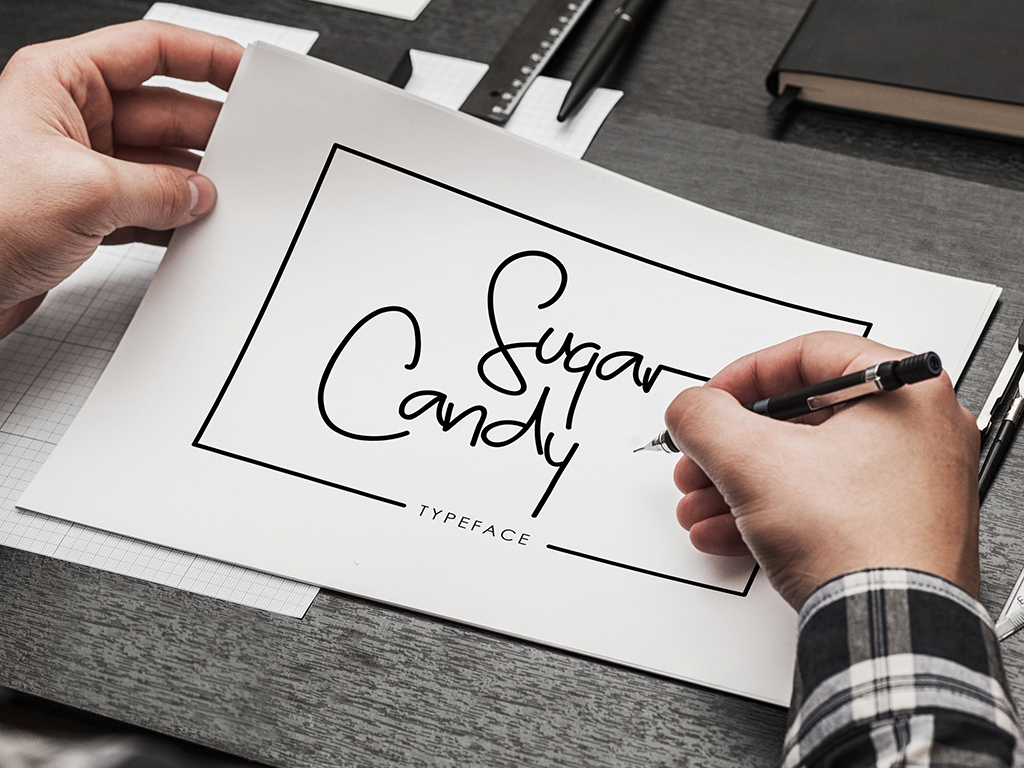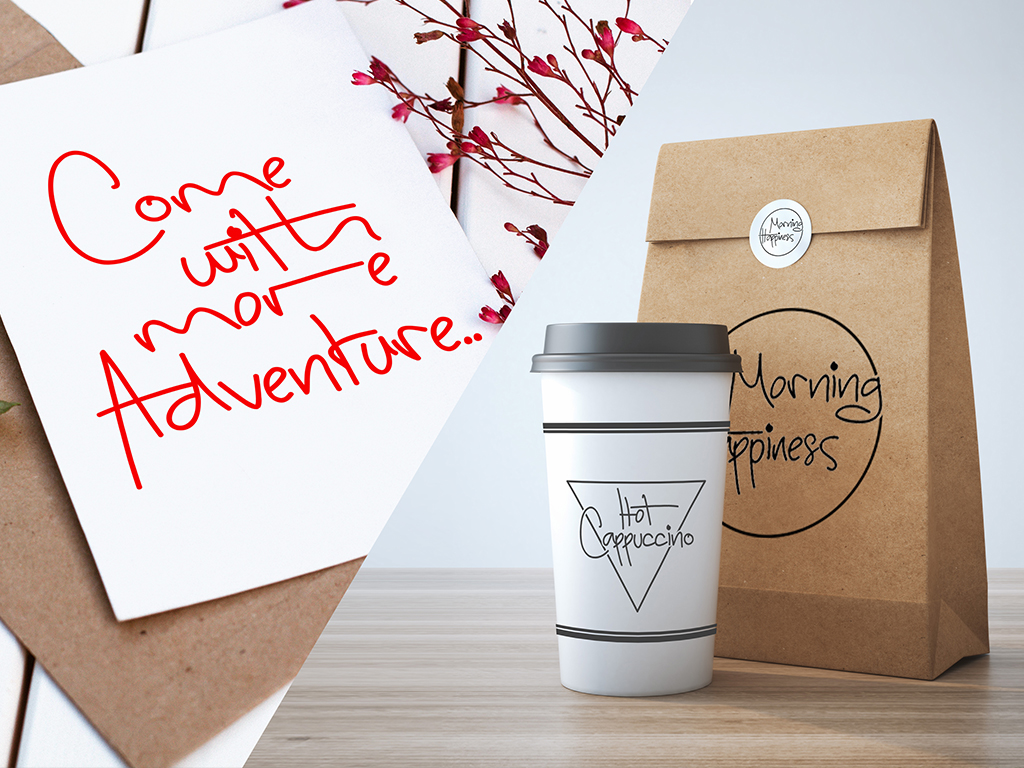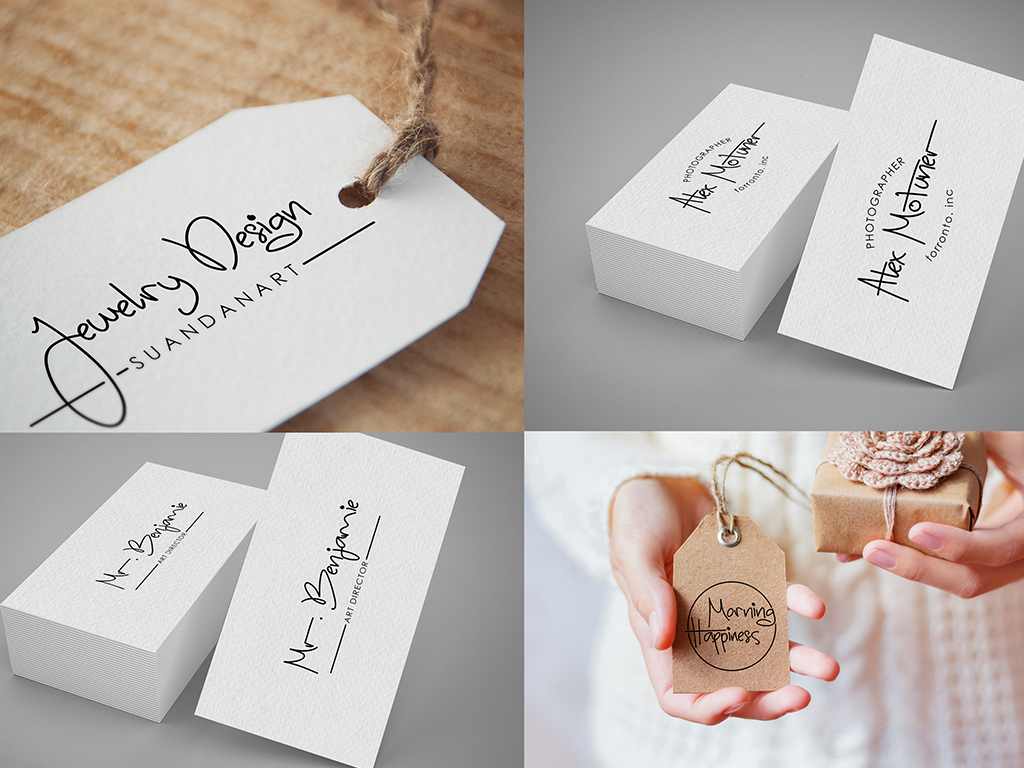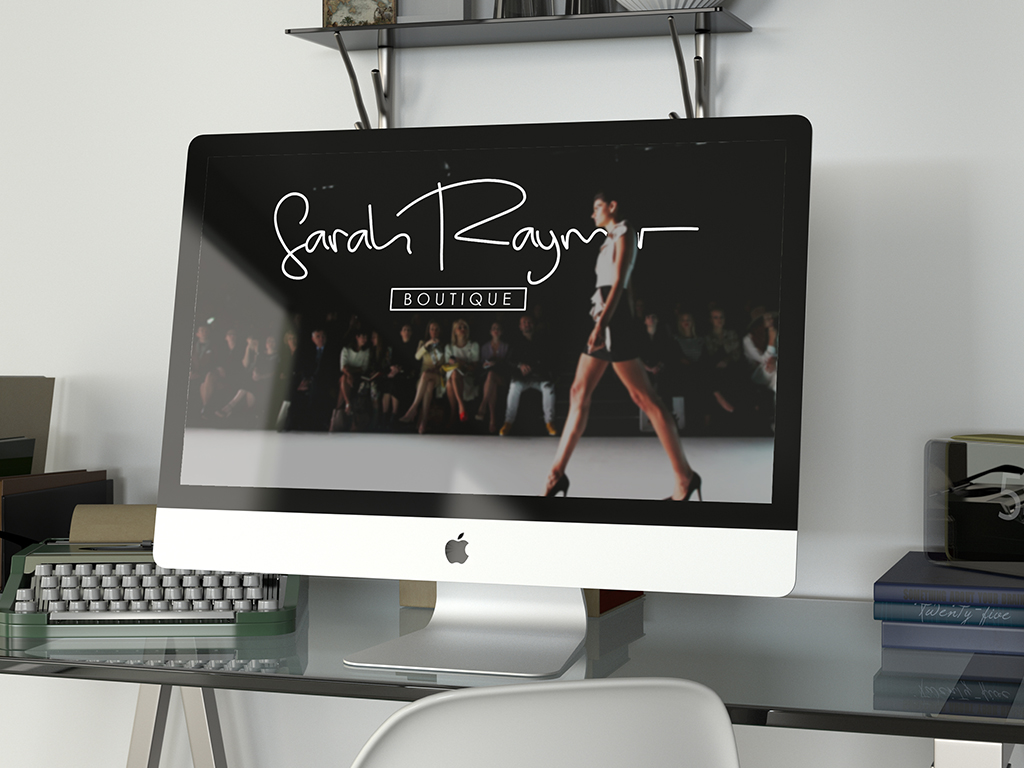
HomeScript FontsSugar Candy Font Script Fonts Sugar Candy Font FacebookXPinterestWhatsApp Sugar Candy Font Poster 2 Sugar Candy Font Poster 3 Sugar Candy Font Poster 4 Sugar Candy Font Poster 5 About Sugar Candy Font Sugar Candy is a monoline typeface font inspired by a classic handwriting style. DOWNLOAD NOW People also explored Sandira Script Font Munchberg Font Sabrina Dahlia Font Another Font Lonely Station Font Proteus Font Fourier Font Midmountte Peacher Font 543 0 TagsSugar Candy Font Previous articleGradient Goddess FontNext articleKayla Font LEAVE A REPLY Cancel reply Comment: Please enter your comment! Name:* Please enter your name here Email:* You have entered an incorrect email address! Please enter your email address here Website: Save my name, email, and website in this browser for the next time I comment. Personal Use Free Dandelions Bloom Personal Use Free Read more about this font Aragon Personal Use Free Read more about this font Imelda Personal Use Free Read more about this font Arabella Script Personal Use Free Read more about this font BLOG The 10 Best Handwriting Fonts to Add Personality to Your Designs 10 of the Best Handwriting Fonts for Adding Personality to Your Designs There will undoubtedly be no other better choice than handwriting fonts to give... Modern Sans-Serif Fonts That Brands Love in 2025 Top 7 Google Fonts Alternatives for Faster and Privacy-Friendly Web Design (2025) How to Cut Any Font on Cricut: Convert a Font to SVG (Free)